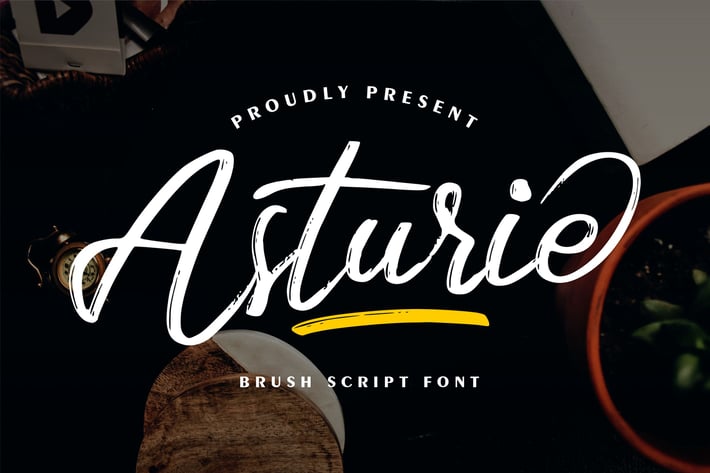
Asturie | Brush Script Font
Asturie | Brush Script Font with a calligraphy style, So beautiful on invitation like greeting cards, branding materials, business cards, quotes, posters, and more!